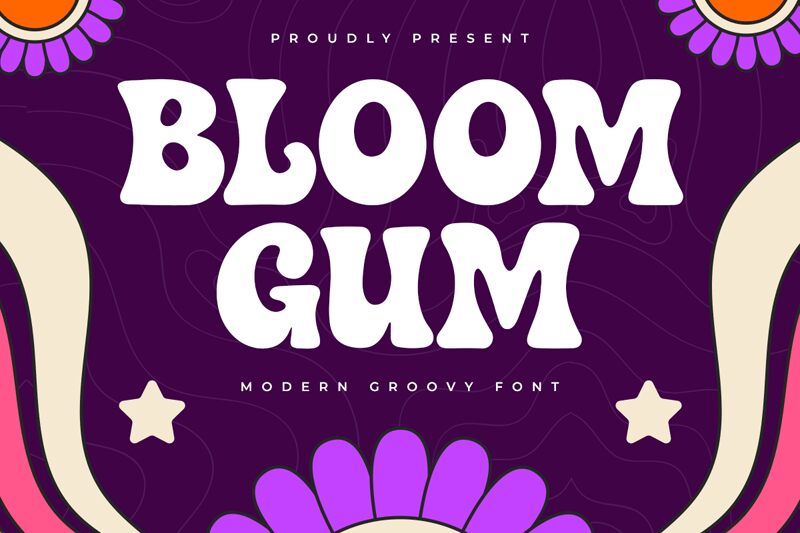
Bloom Gum font, designed by Kong Font, is a groovy and vibrant typeface that captures the essence of retro-inspired design. This font beautifully blends fluid and organic forms into a dynamic and lively arrangement. With its curvy and vibrant appeal, Bloom Gum evokes the design styles of the 1960s and 70s, perfect for creating a bold, nostalgic statement in your contemporary projects.
Ideal for use in branding, advertising, packaging, posters, magazine covers, and digital media, Bloom Gum can offer a creative edge to even the simplest of designs. Its vintage yet modern feel can serve to enhance headings, banners, social media graphics, logos, and invitations.